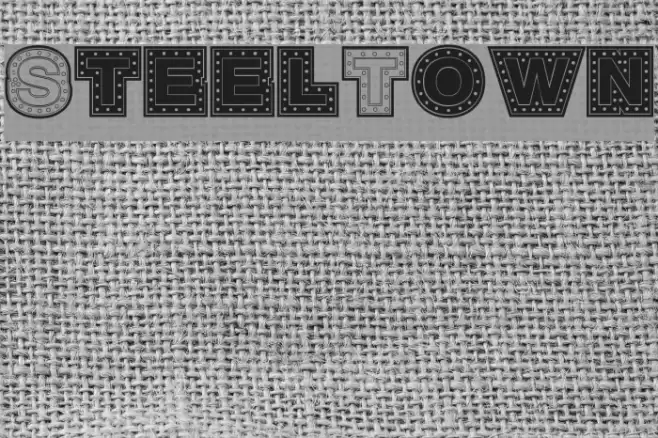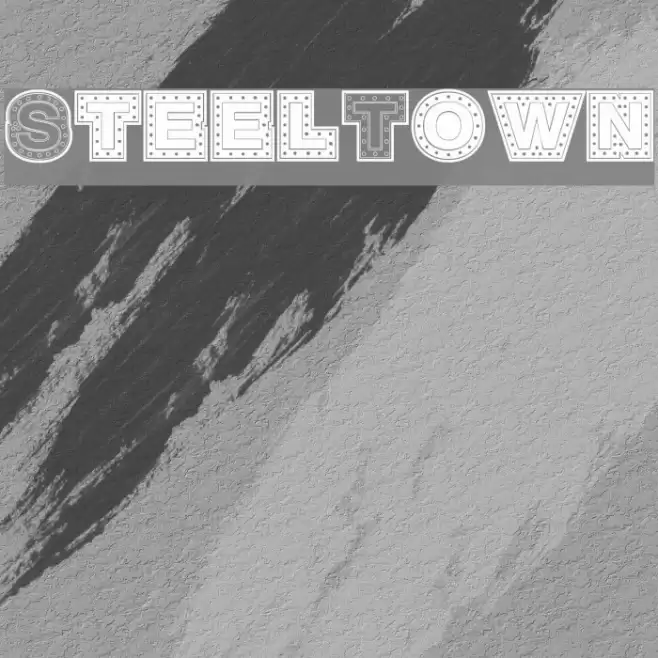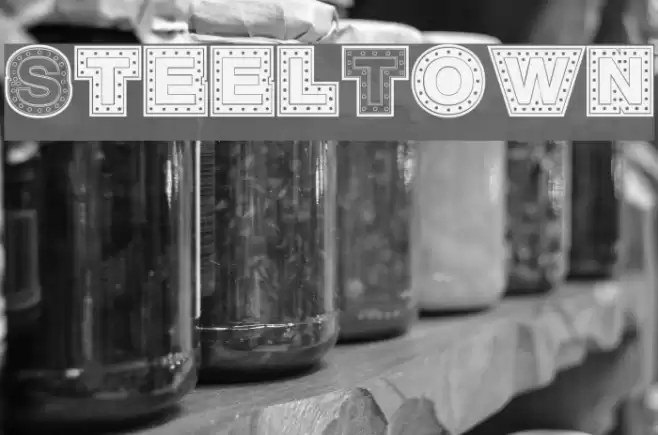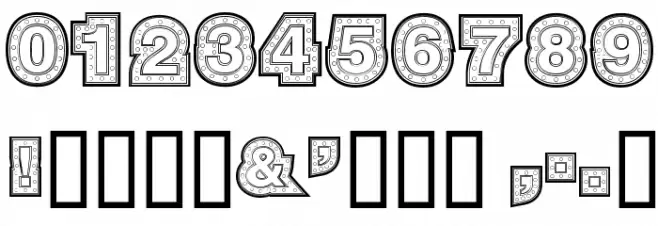
SteelTown Font
SteelTown Description
This font features a bold, industrial design with a three-dimensional effect. Each character is outlined with a thick border and filled with a pattern of rivets, giving it a rugged, metallic appearance. The uppercase letters are prominent and commanding, while the numbers and special characters maintain the same robust style. The font's design is reminiscent of vintage signage or machinery, making it ideal for projects that require a strong, impactful visual presence.
A bold, industrial-style font with a 3D effect and rivet details from Decorative fonts.
- Proposed Projects: Ideal for branding, posters, signage, and any project requiring a strong industrial aesthetic.
- Overall Style: Vintage, Industrial